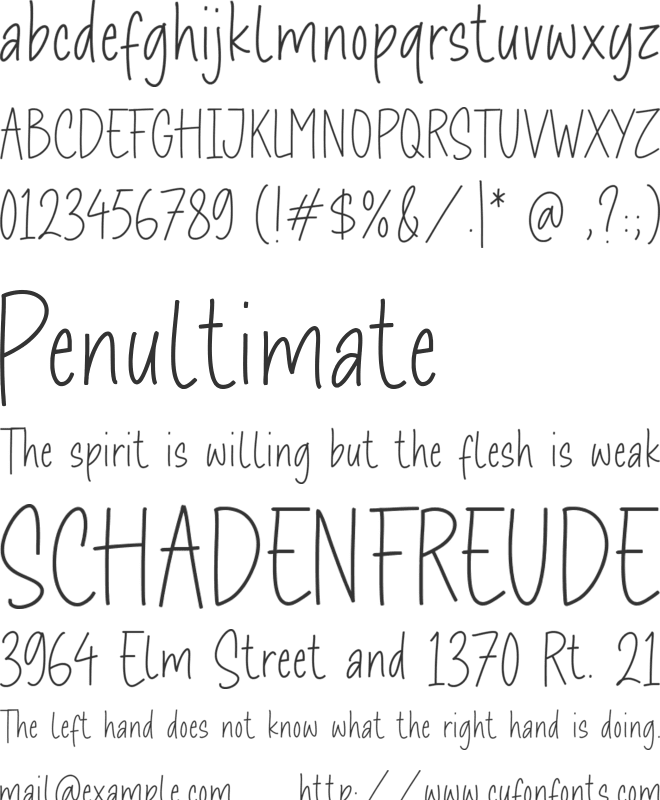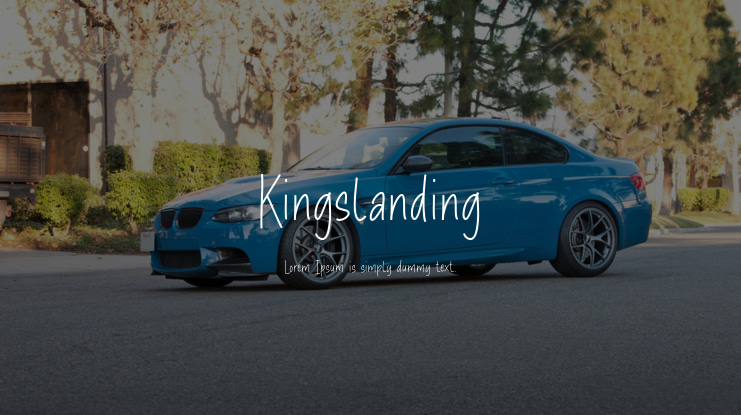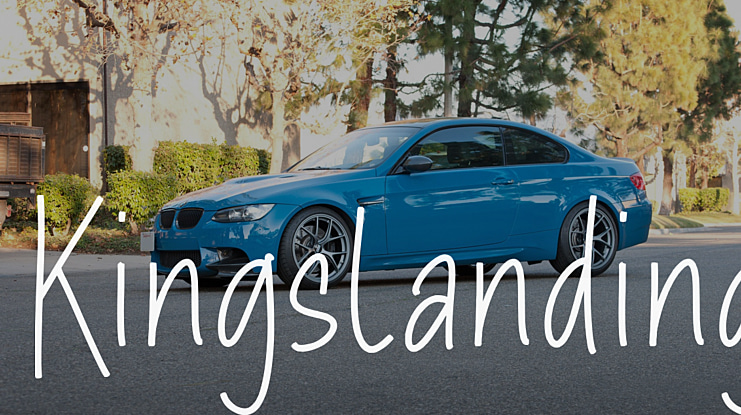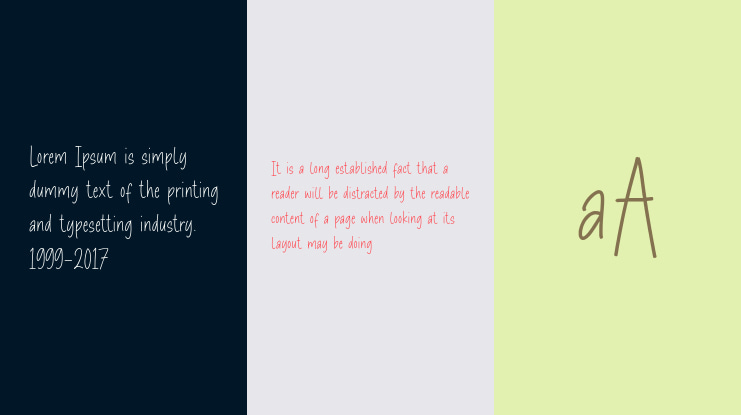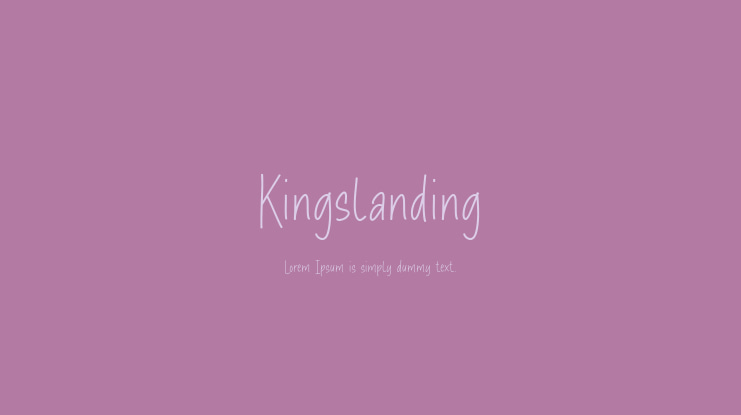
Kingslanding Font
The Kingslanding Handwritten Font is a modern and fresh script font that will add a warm and inviting touch to your business. It is perfect for various applications such as product packaging, branding projects, magazines, social media, weddings, or simply to highlight words on a background.
Key features of the Kingslanding Font include:
• - Full set of standard alphabet and punctuation
• - Multilingual support